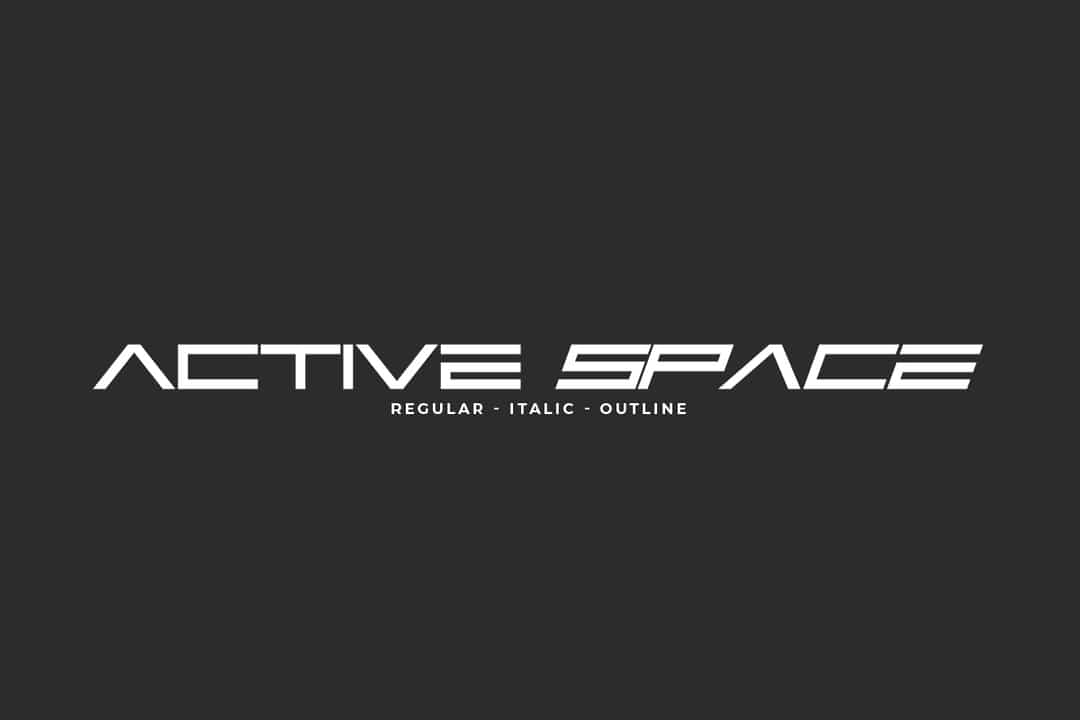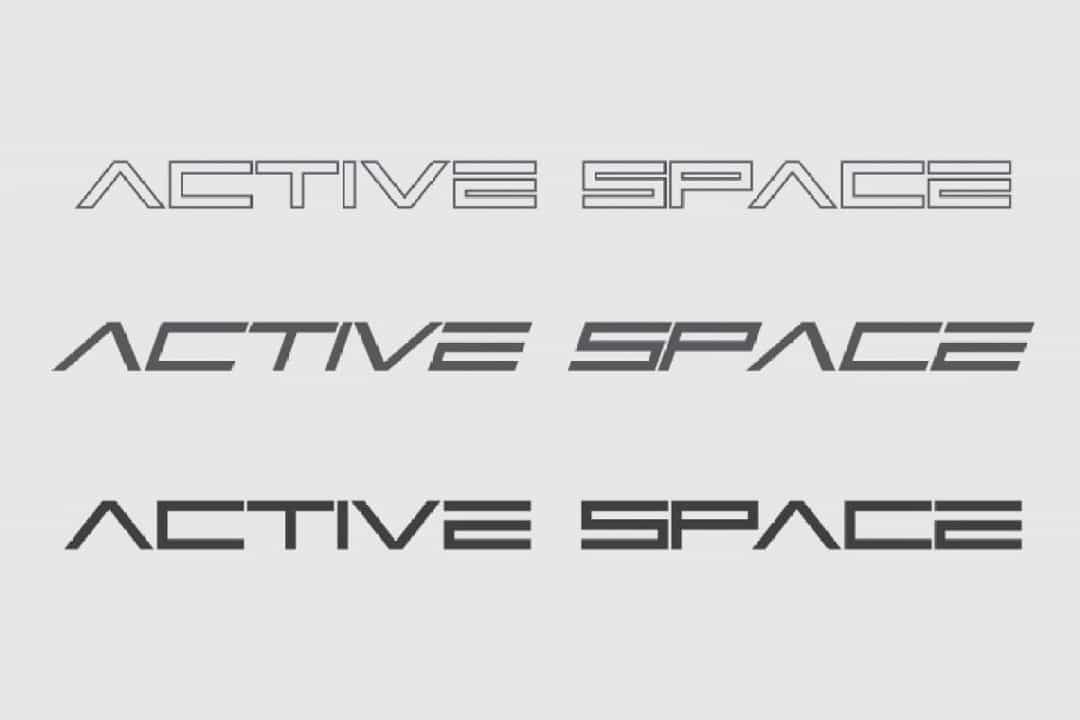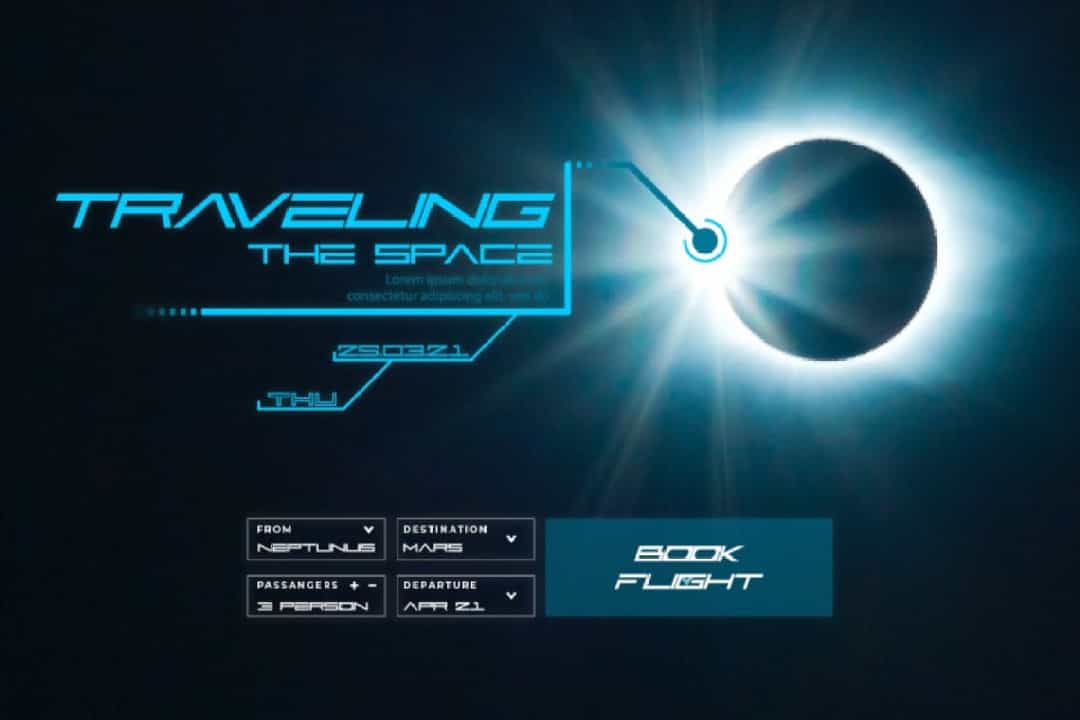
Discover Active Space Font, part of the Display Stencil Army Techno collection—a versatile and unique font perfect for adding a personal touch to your projects. Download it for free and enjoy crafting designs with style, from invitations to social media posts. This font is available exclusively for personal use, giving you the freedom to create without limits. Unlock your creativity with Active Space Font today!